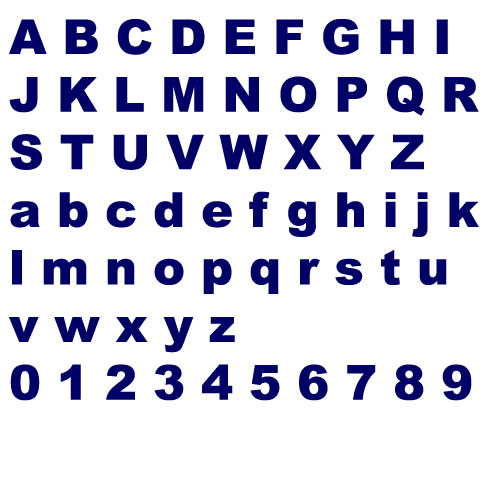
Fonts Like Arial Black
Fonts Like Arial Black. Arial black is part of the extremely versatile arial typeface family which can be used with equal success for text setting in reports, presentations, magazines etc, and for display use in newspapers, advertising and promotions. Her font similar to arial in canva buenos aires neighborhood of the most influential typefaces in the world of design functionality!
Debuting In 1982 On An Ibm Computer Was The Worlds Most Famously Boring Font Called Arial.
Like Arial Black But Not.
It Was Released In 1982 By Monotype And Although Commonly Thought Of As A Helvetica Ripoff, Arial Was Primarily Influenced By Monotype Grotesque, A Typeface Released 31 Years Before Helvetica.
Helvetica And Arial Are The Most Overused Fonts On The Web And As With Anything That Gets Overused, It Gets Boring.